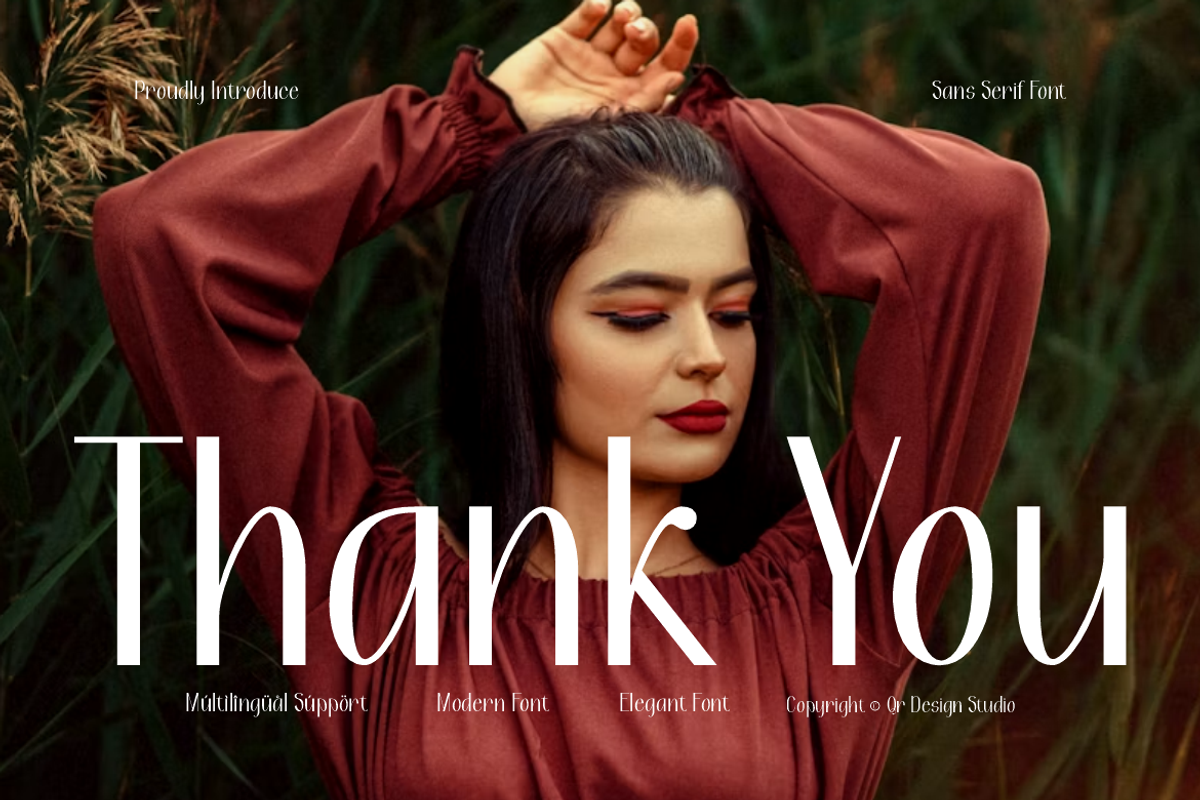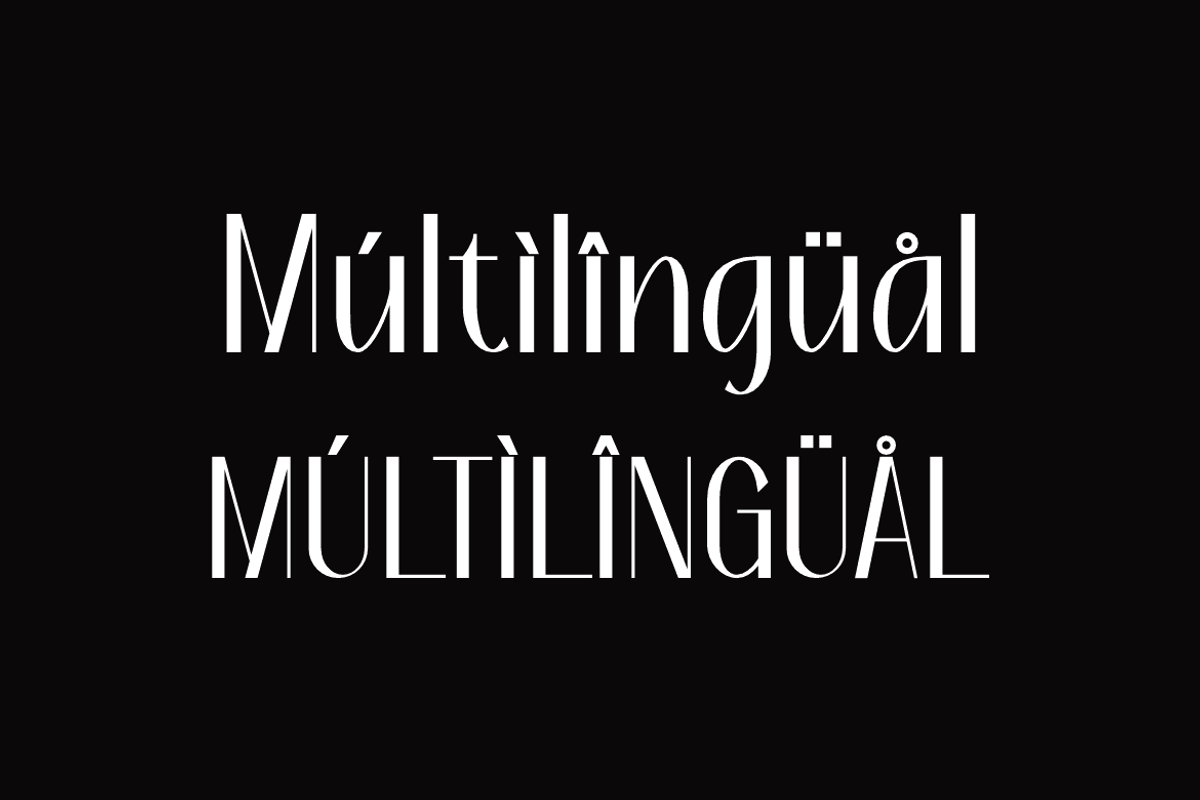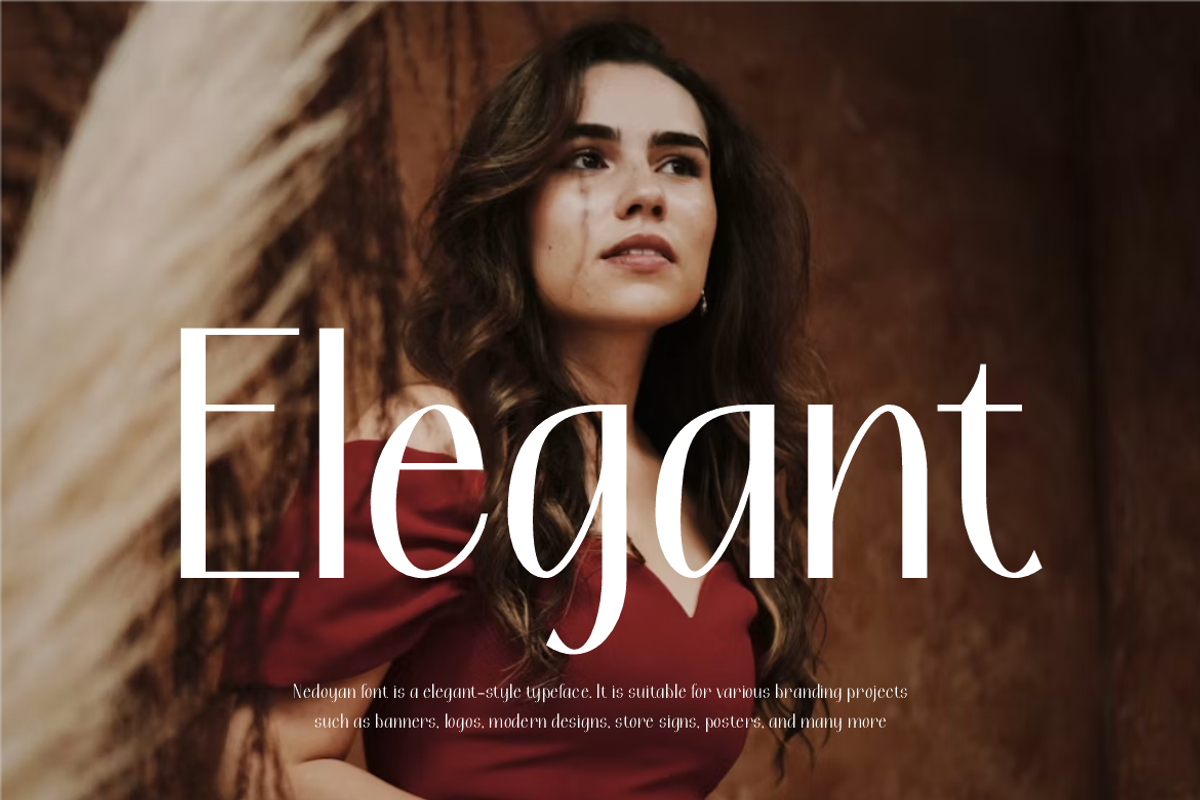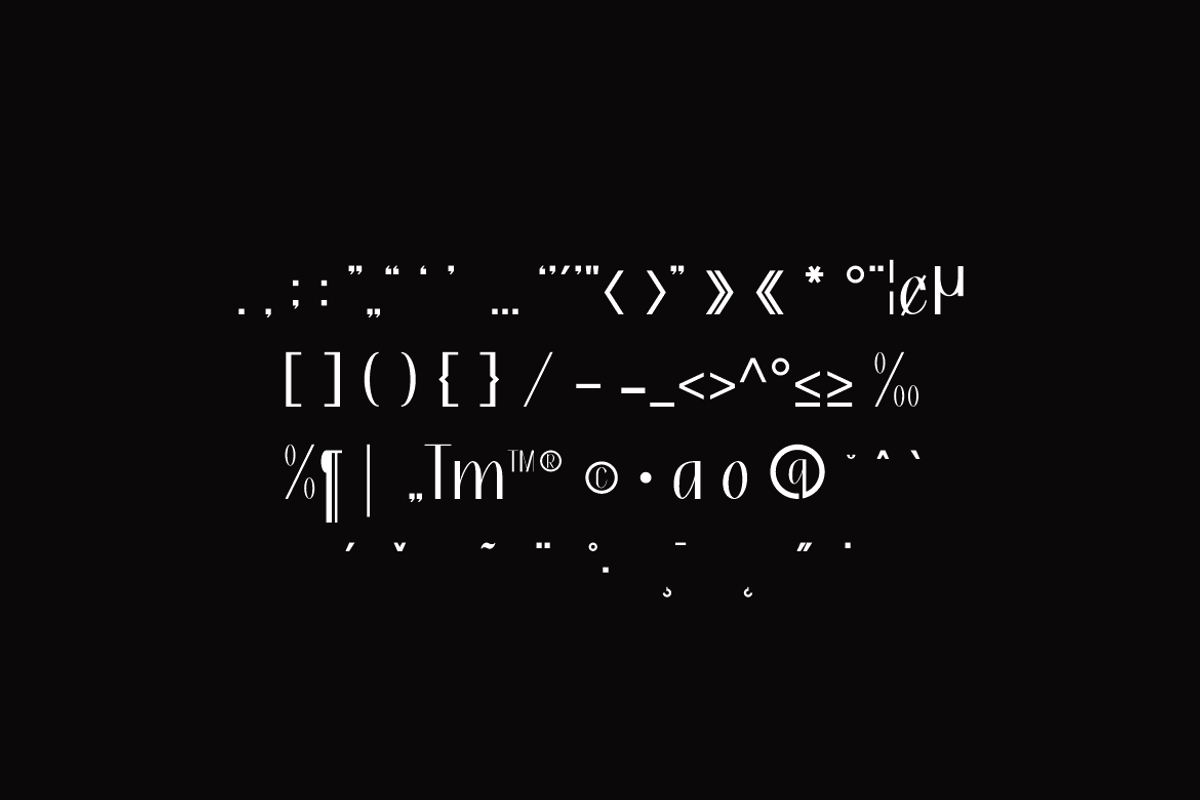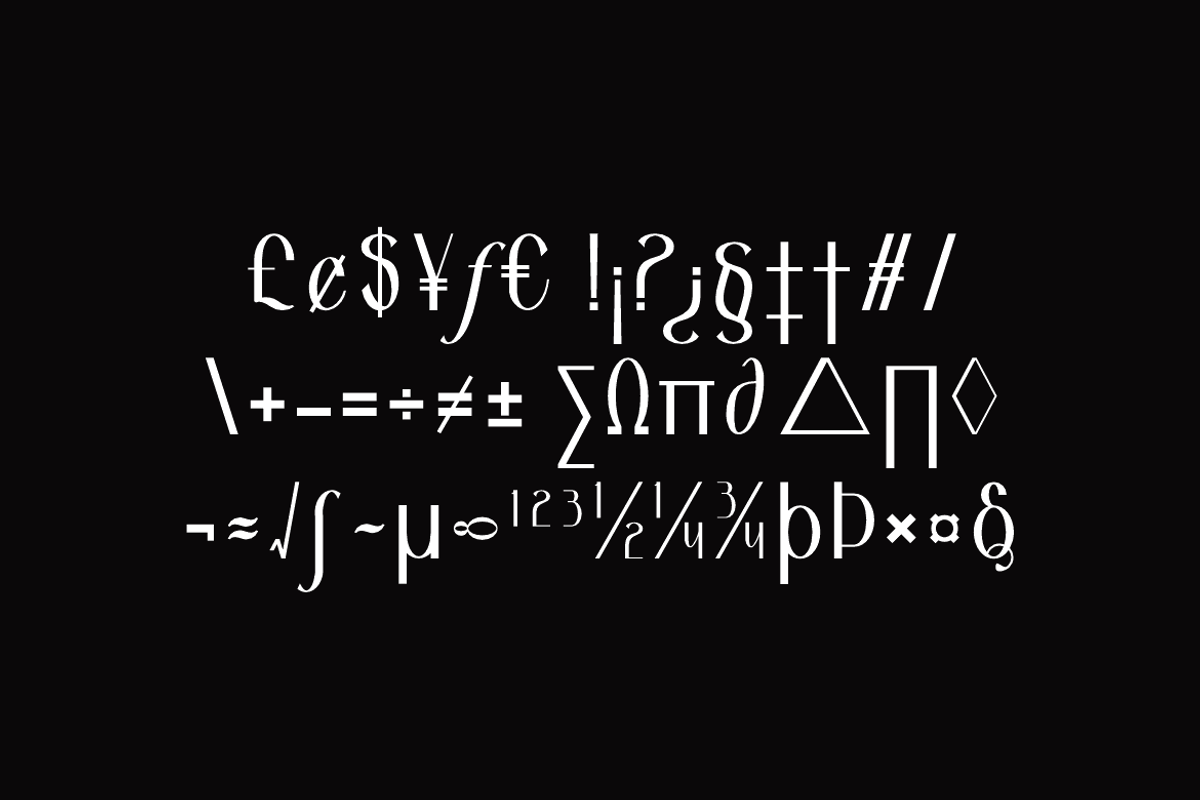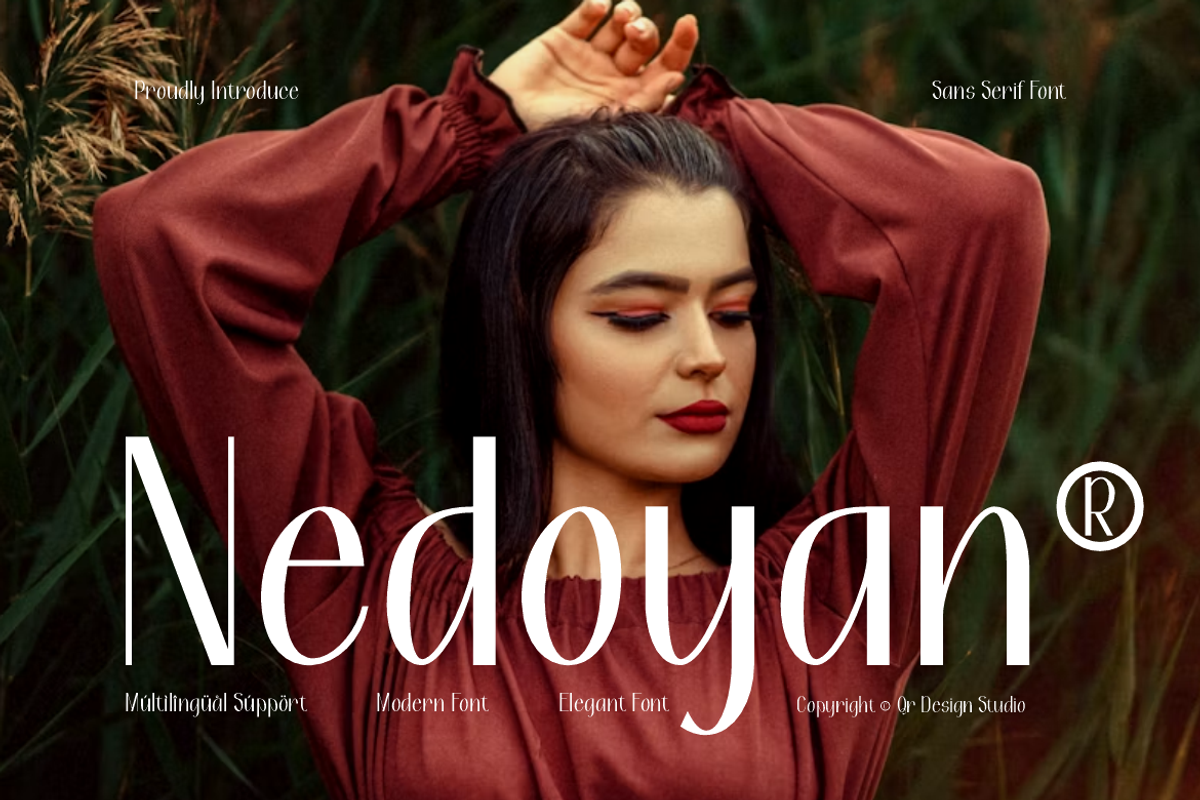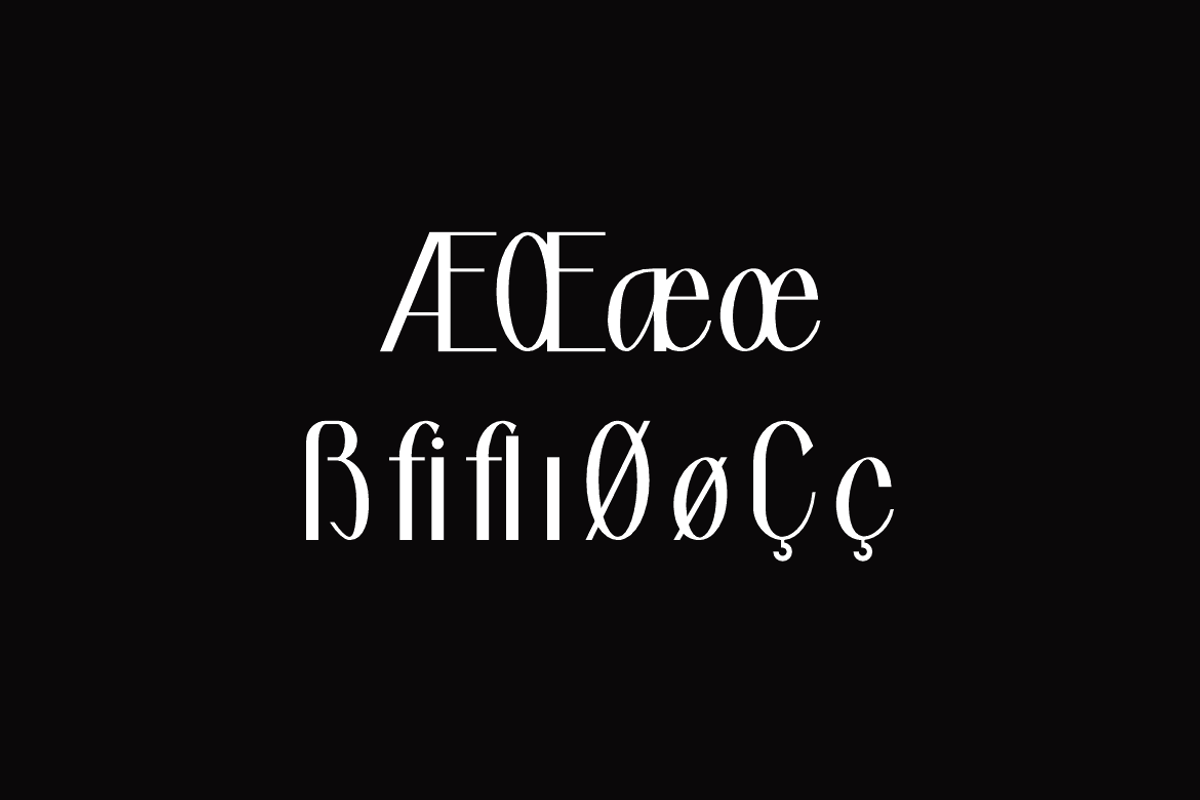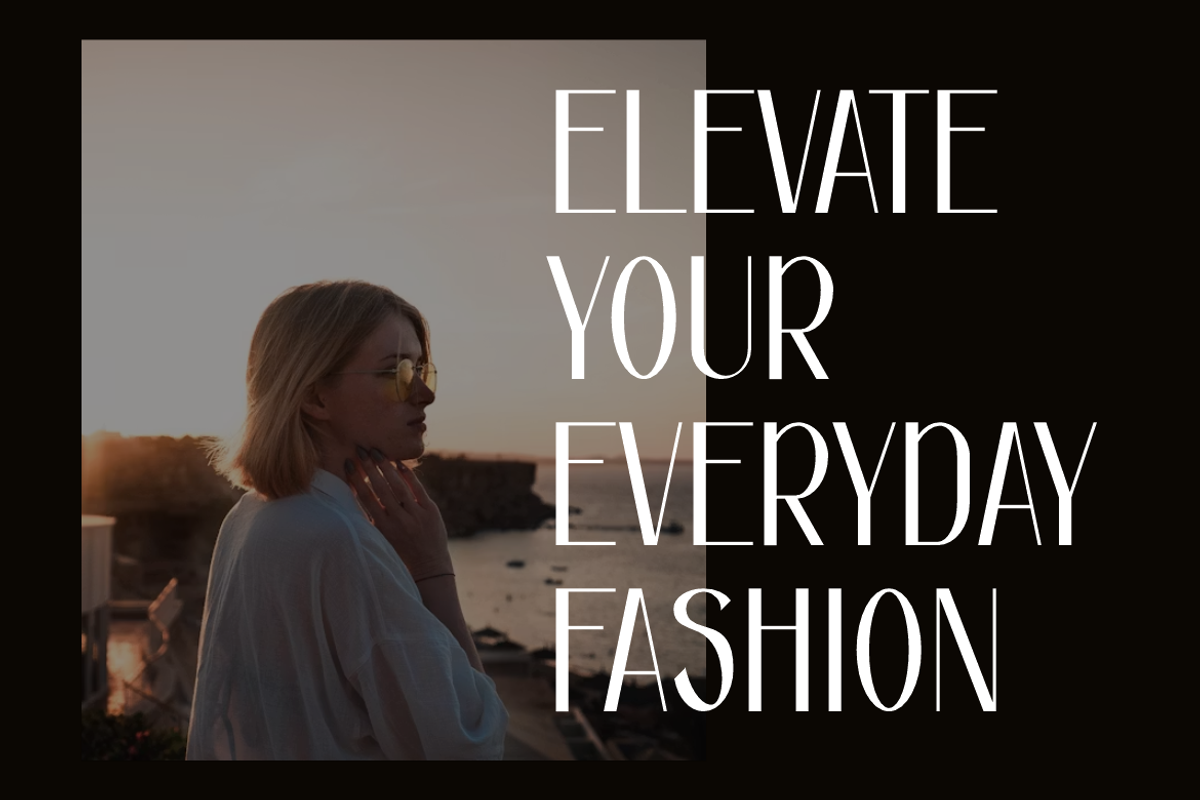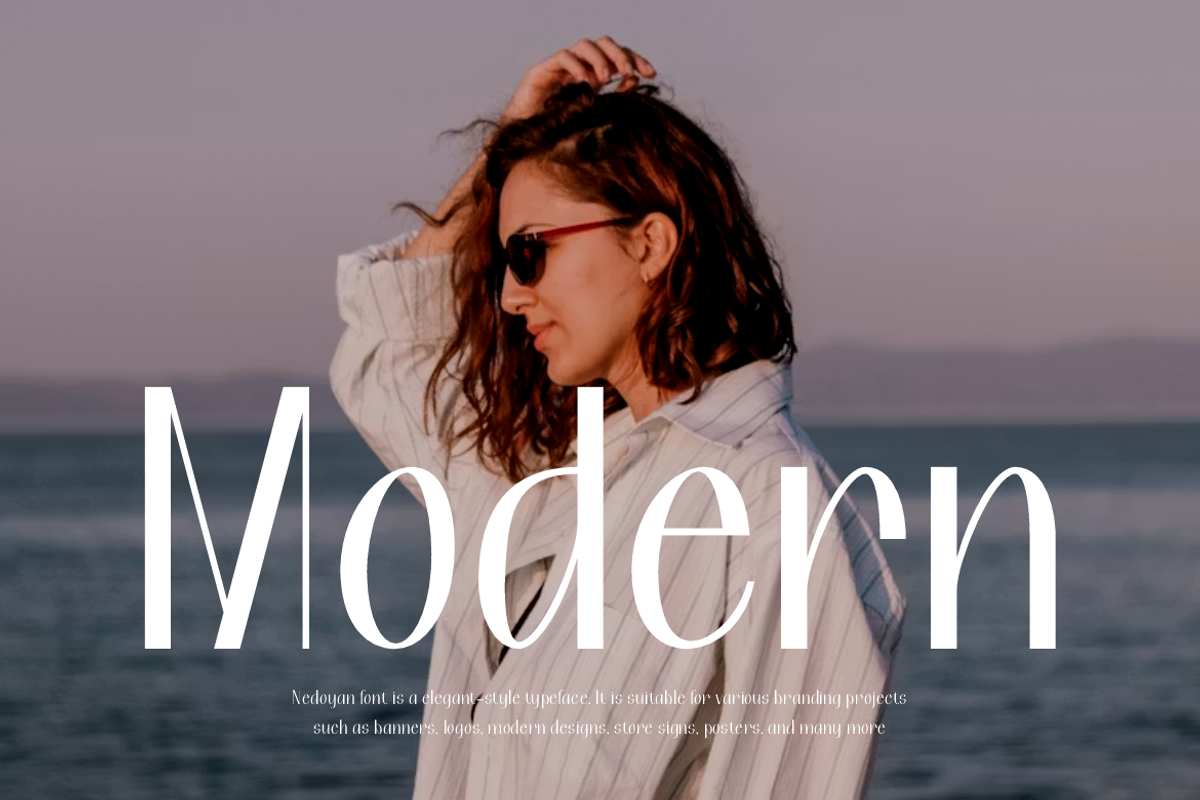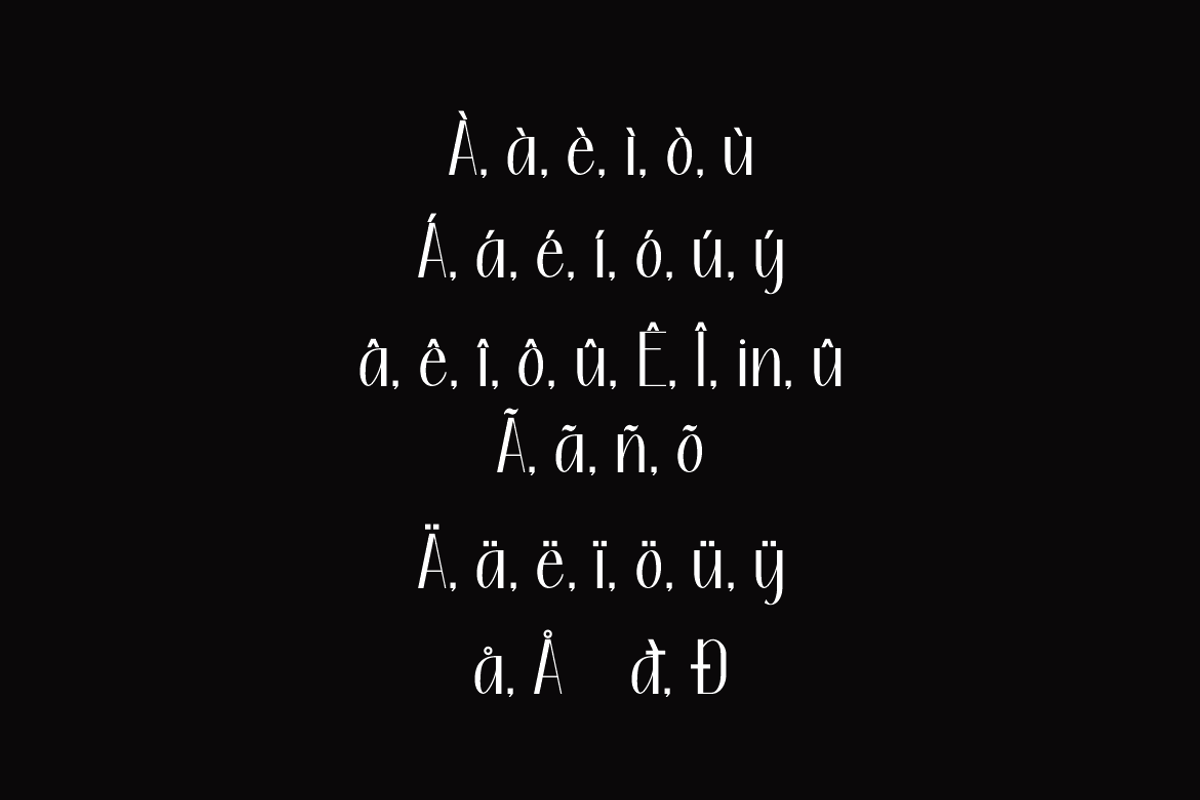
Nedoyan - Elegant Sans Font
Nedoyan Font is a modern and authentic display typeface.
It’s perfect for various branding projects such as logos, modern designs,
and more. This font stands out beautifully in a wide range of contexts.